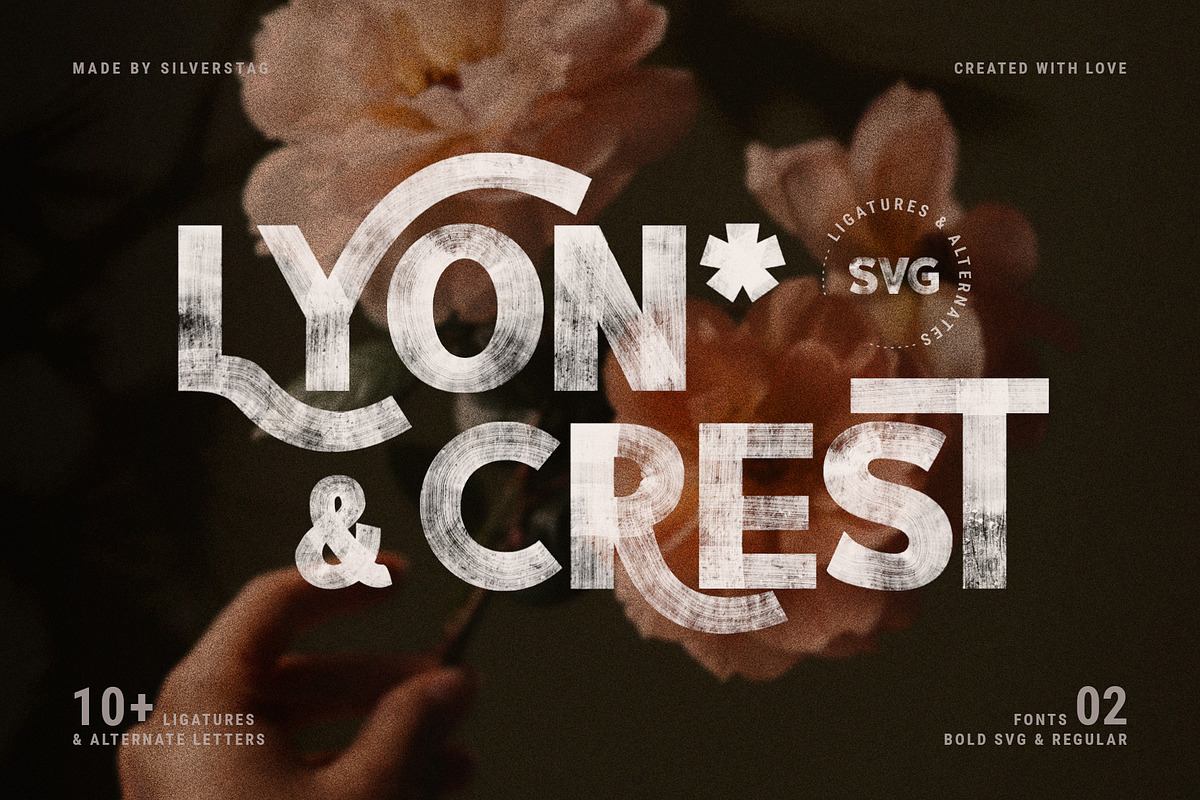
LYON & CREST – HandPainted SVG Type Free Download is a stunning, high-resolution typeface that captures the raw beauty of hand-painted lettering. Please note: you must purchase this font for commercial use, but you can test it through a free download. As an OpenType SVG font, LYON & CREST delivers rich textures, natural brush details, and authentic strokes—making it perfect for posters, album art, branding, editorial design, and packaging that demands artistic impact.
Ideal for creatives who want their typography to feel handcrafted and bold, this font offers a unique blend of expressive energy and vintage grit. Whether you're designing for a music label or a boutique brand, LYON & CREST – HandPainted SVG Type Free Download gives your project a striking, textured edge. Compatible with Adobe Photoshop and Illustrator. Download it today for personal use and bring powerful brushwork and authenticity to your next design.